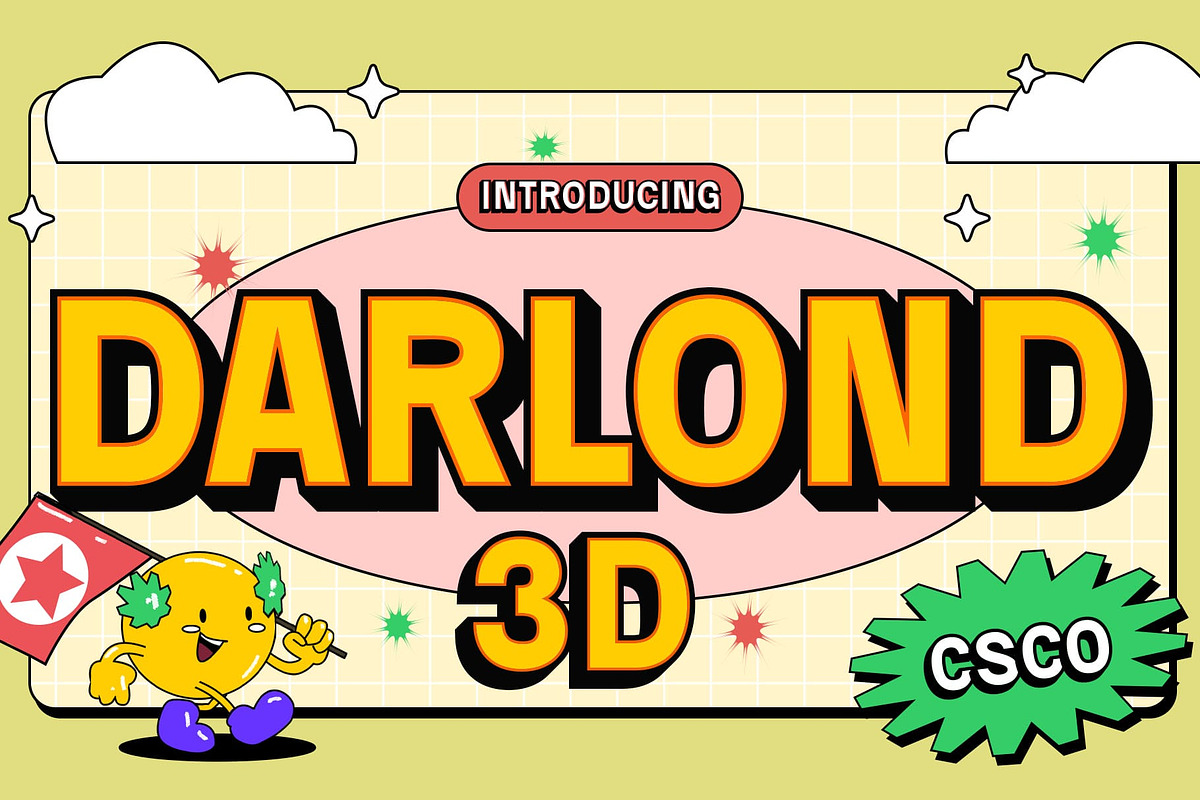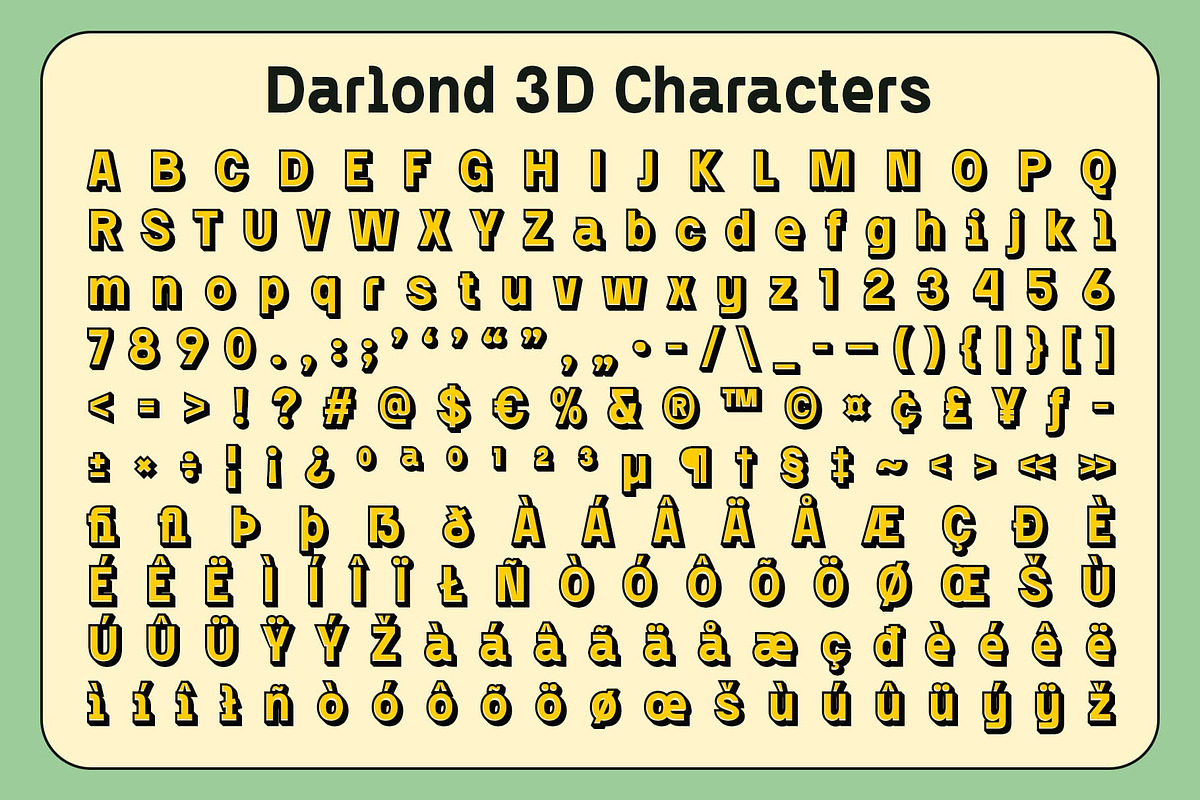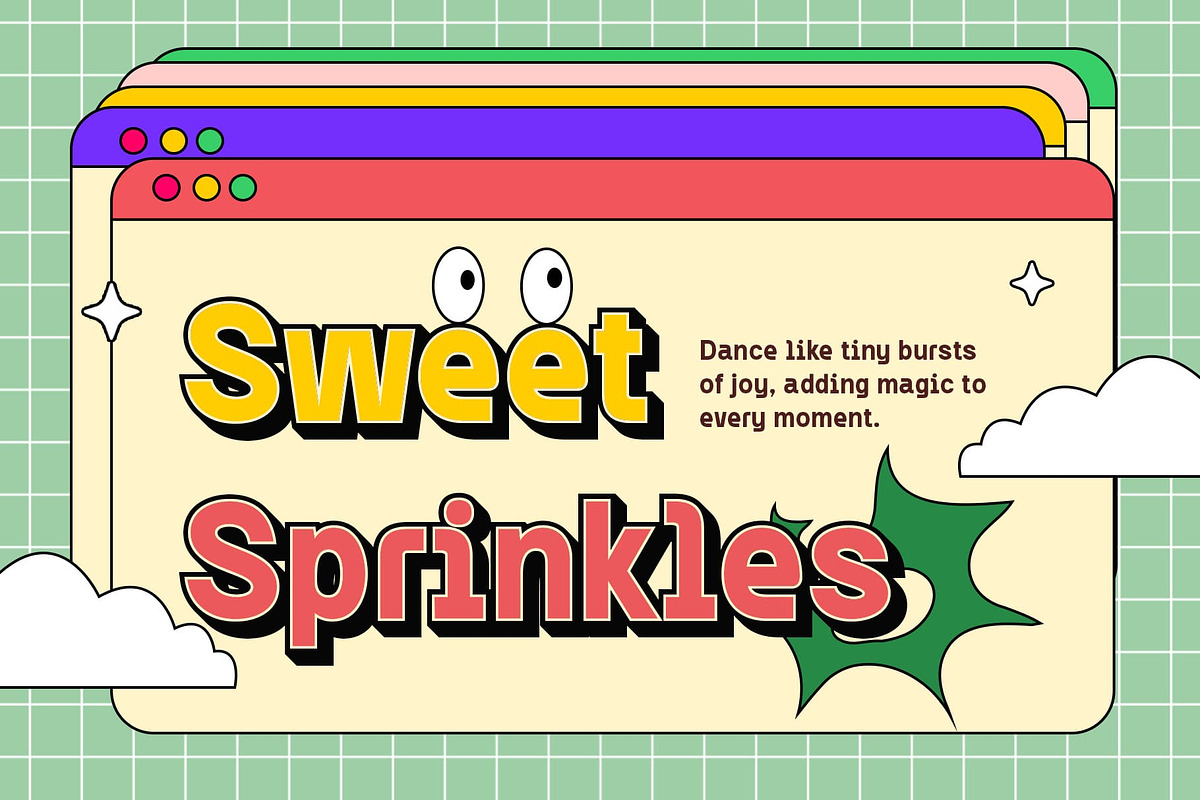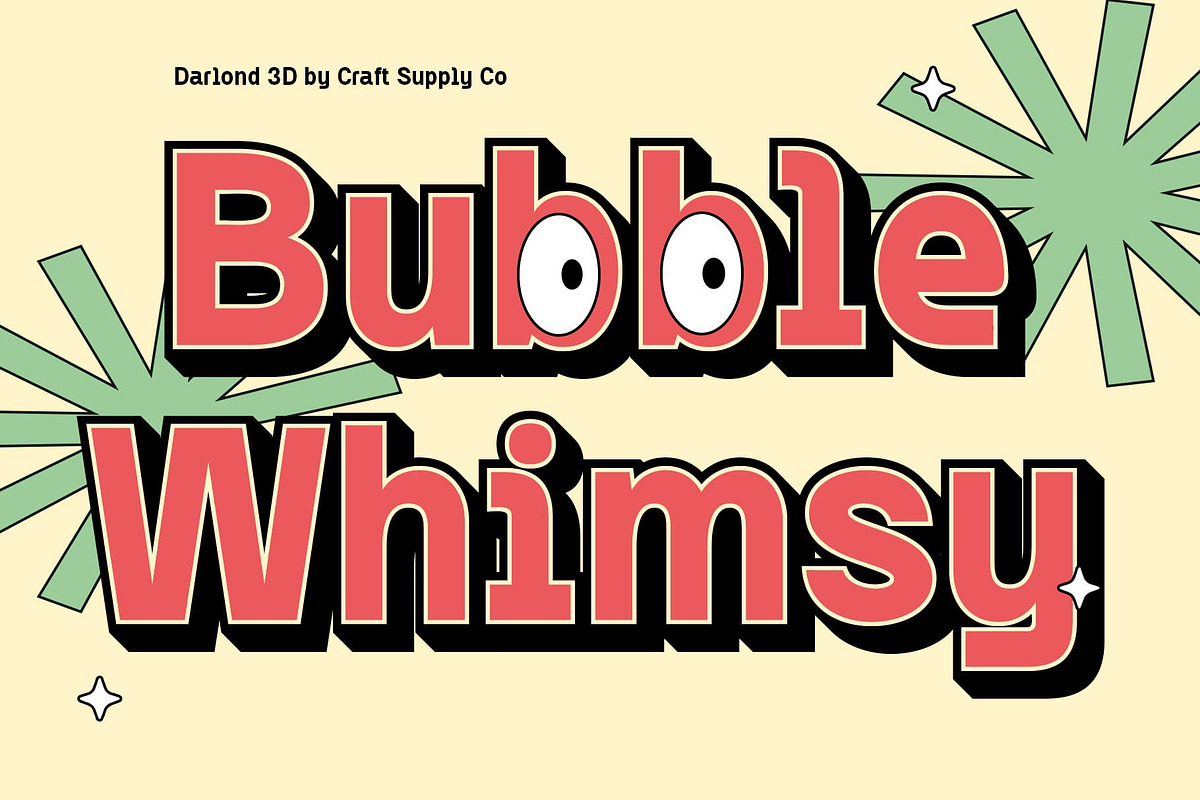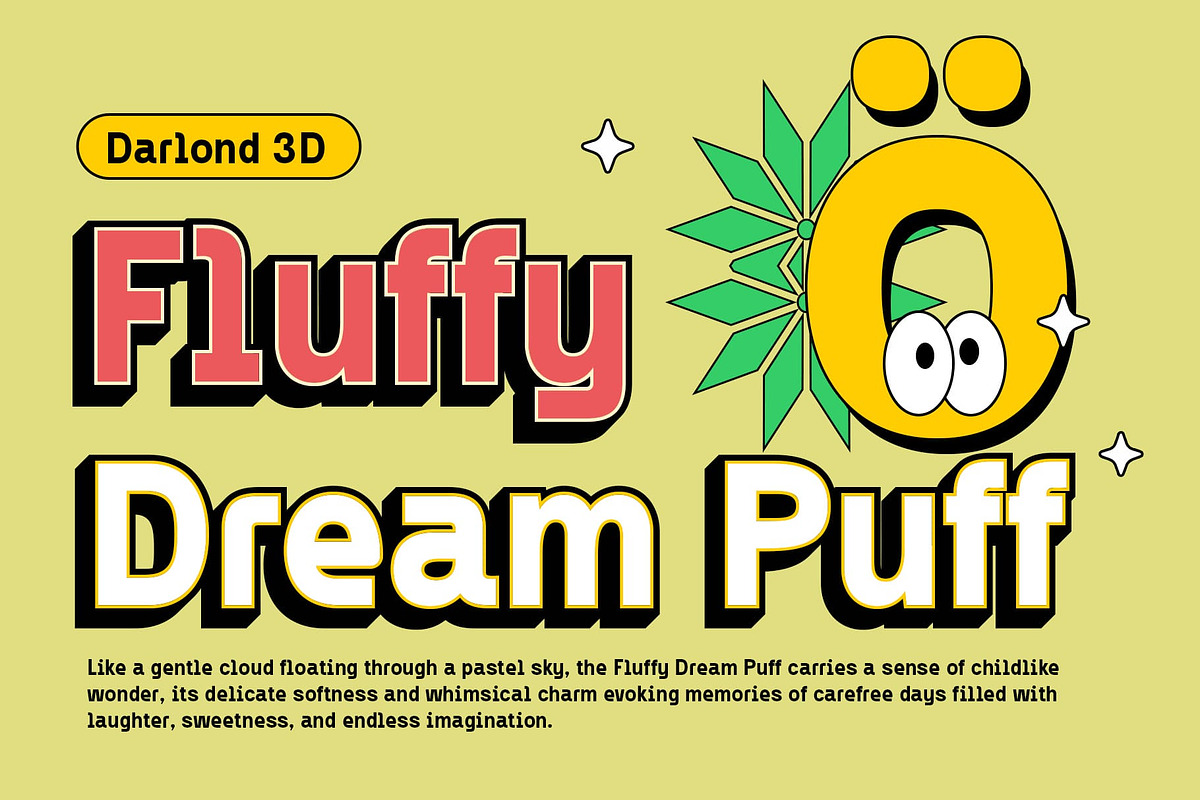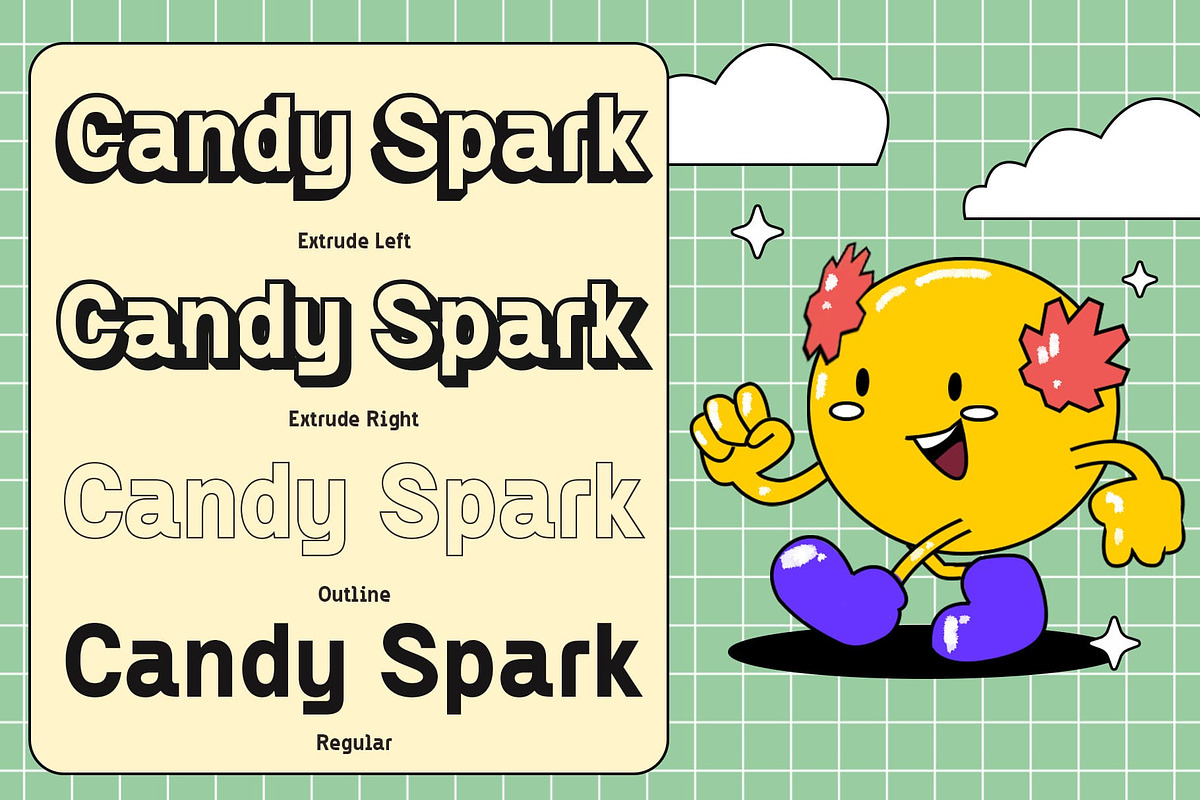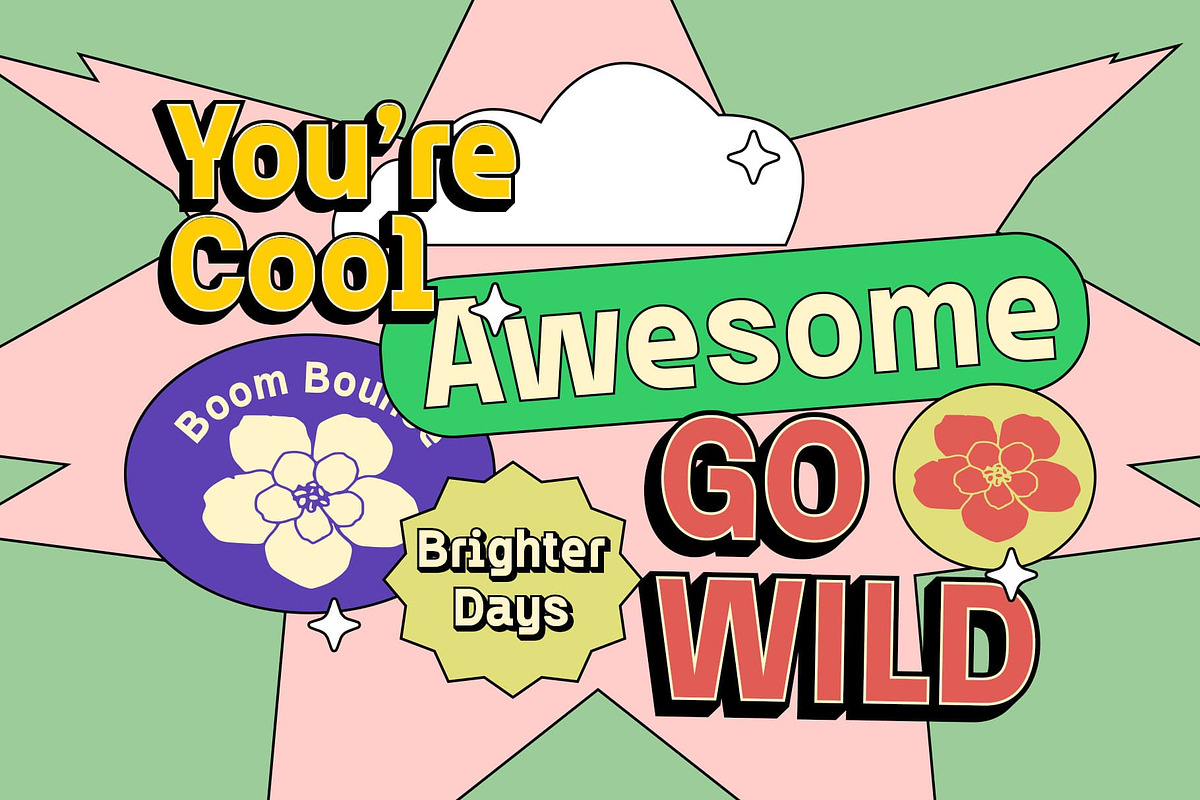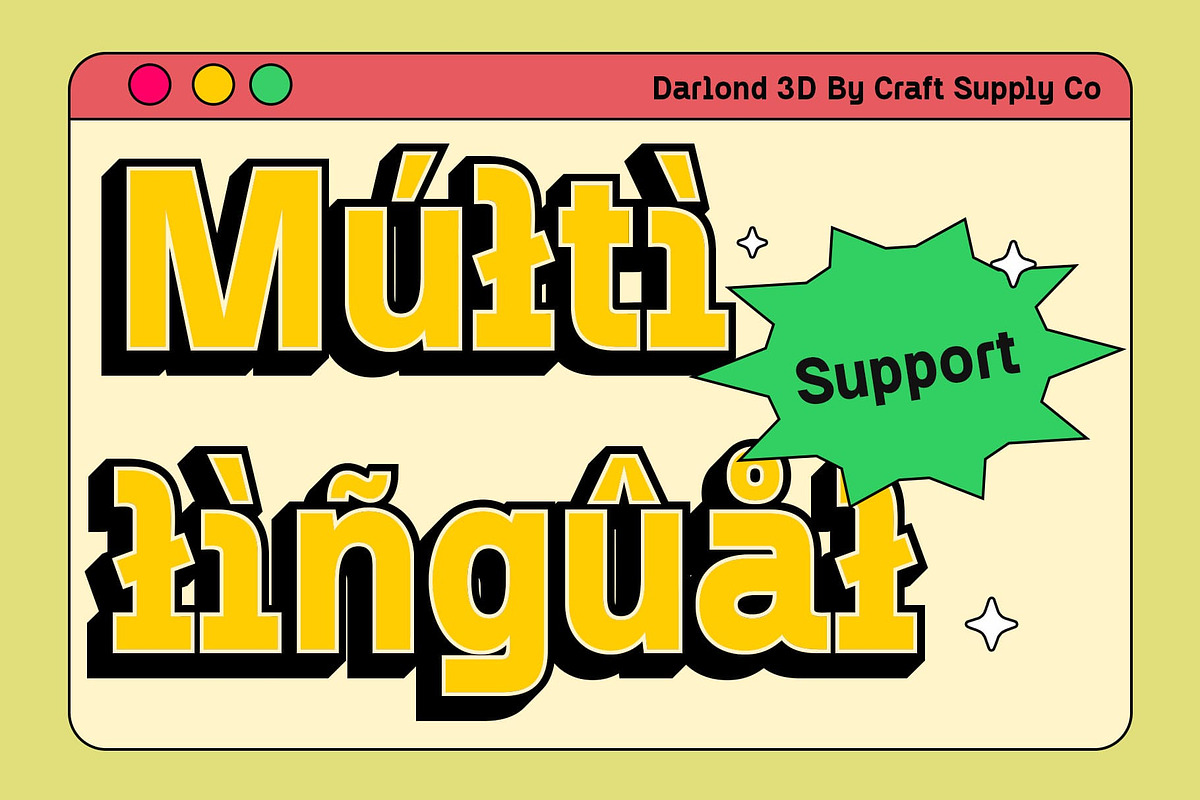
Darlond 3D
Darlond 3D Font: Bold and Dynamic Modern Typography
Modern Sans Serif with Bold Form Darlond 3D is a modern sans serif font that exudes strength and clarity. Its bold letterforms provide a commanding presence, ensuring that your design captures attention from the moment it’s seen. The clean lines and geometric structure of the font make it ideal for contemporary projects, where readability and impact are paramount. Its bold form gives a sense of reliability and modernity, making it perfect for various applications in the tech, advertising, and creative industries.
Striking 3D Effect for Depth and Energy What sets Darlond 3D apart is its powerful 3D effect, which enhances the bold letterforms and adds a captivating sense of depth. The dimensional quality of the font brings it to life, giving your designs an energetic and dynamic feel. The combination of thick, strong letterforms with a striking 3D effect makes this font perfect for projects that aim to make a strong visual statement.
Ideal for Tech, Branding, and Advertising Darlond 3D’s clean, bold structure combined with its 3D effect makes it an excellent choice for the tech industry, where a sleek, futuristic look is essential. It also works wonders for advertising and branding, helping to create designs that demand attention and convey a sense of power and innovation.
- Darlond Regular
- Darlond Outline
- Darlond Extrude Right
- Darlond Extrude Left